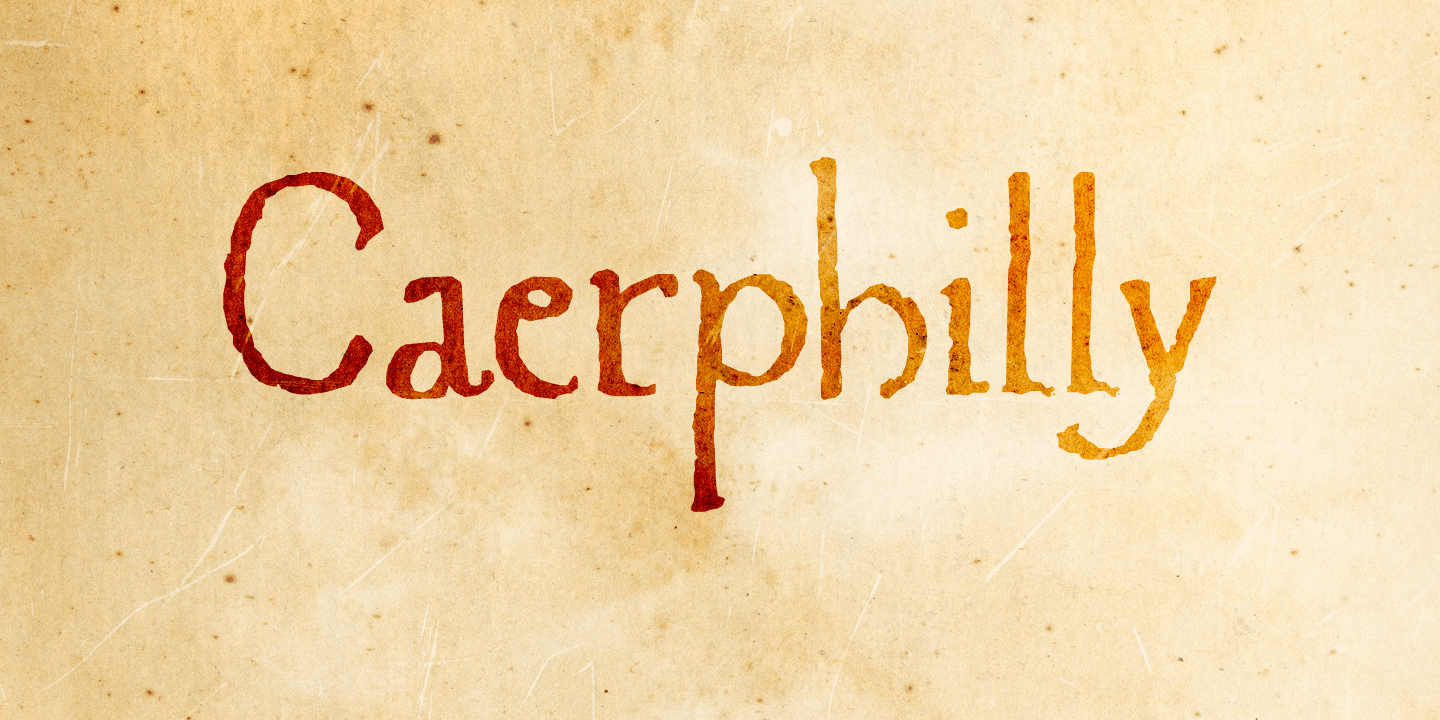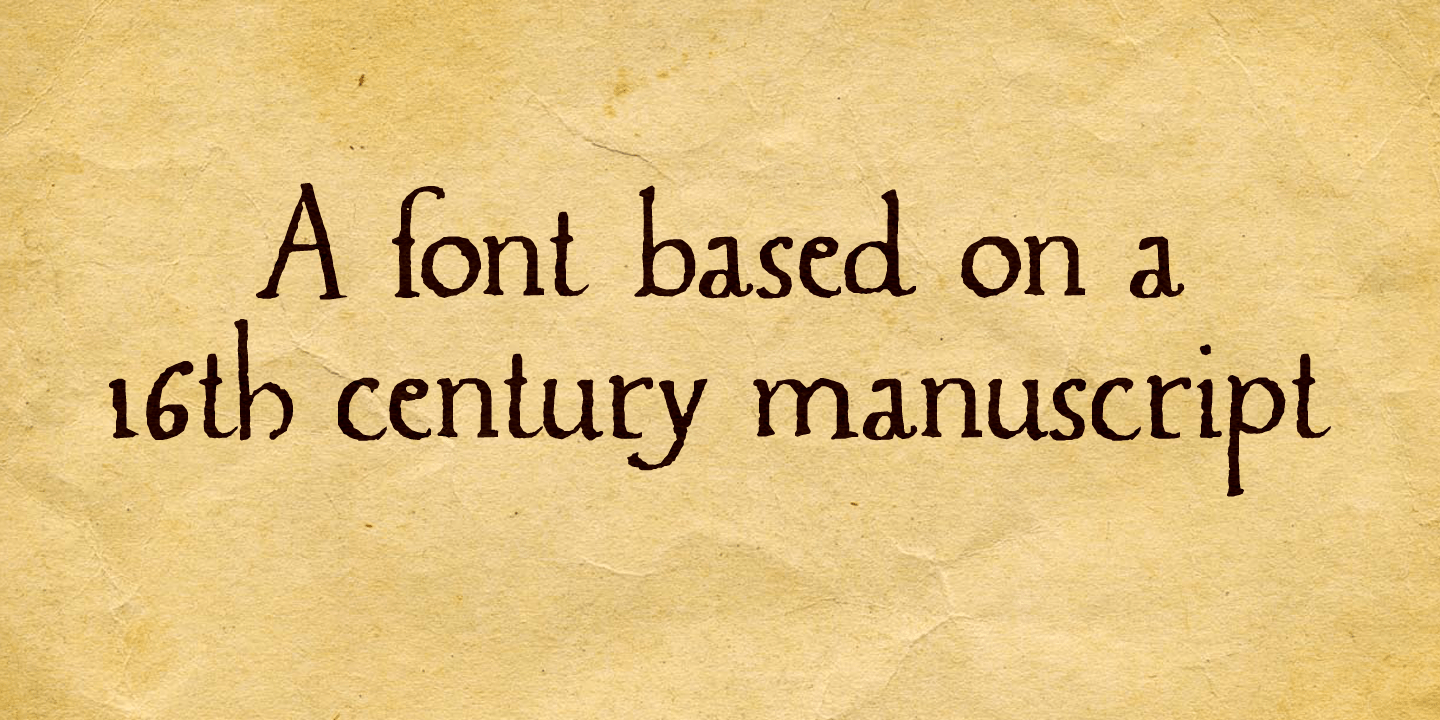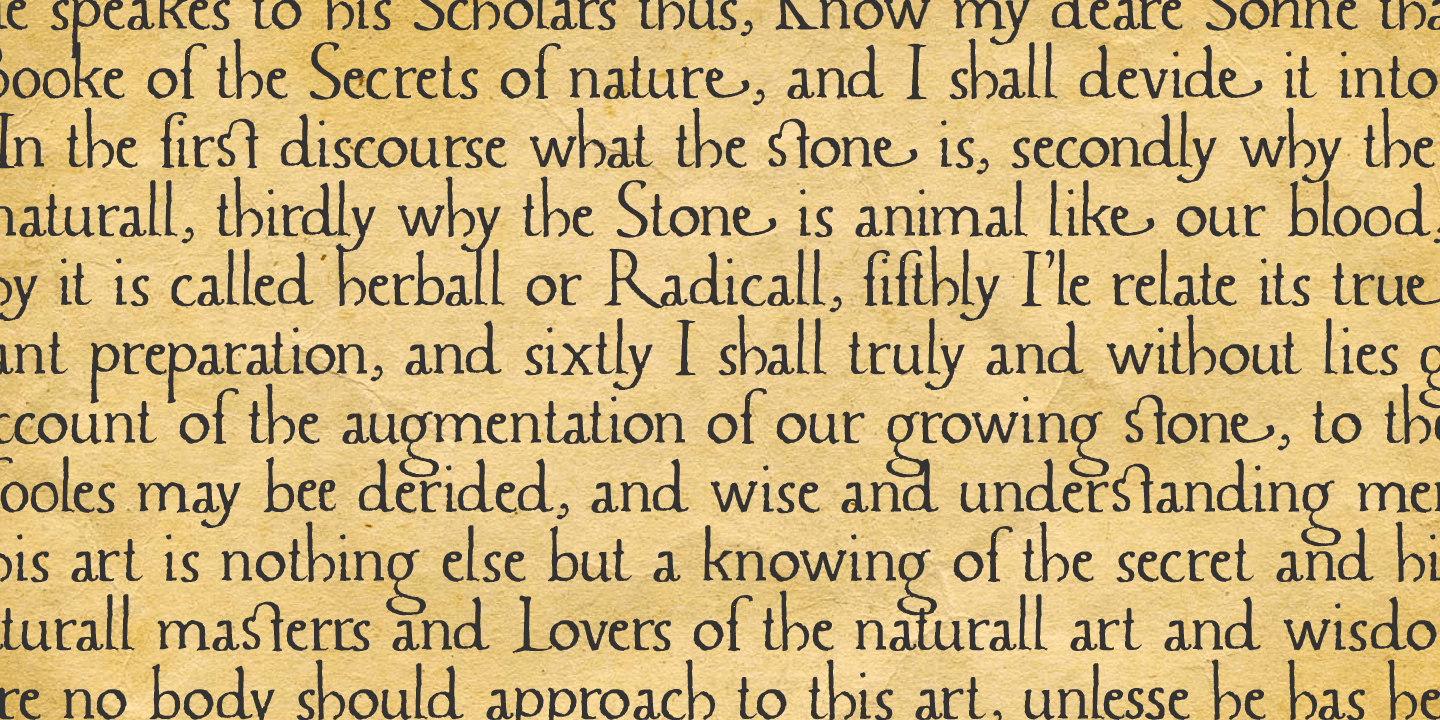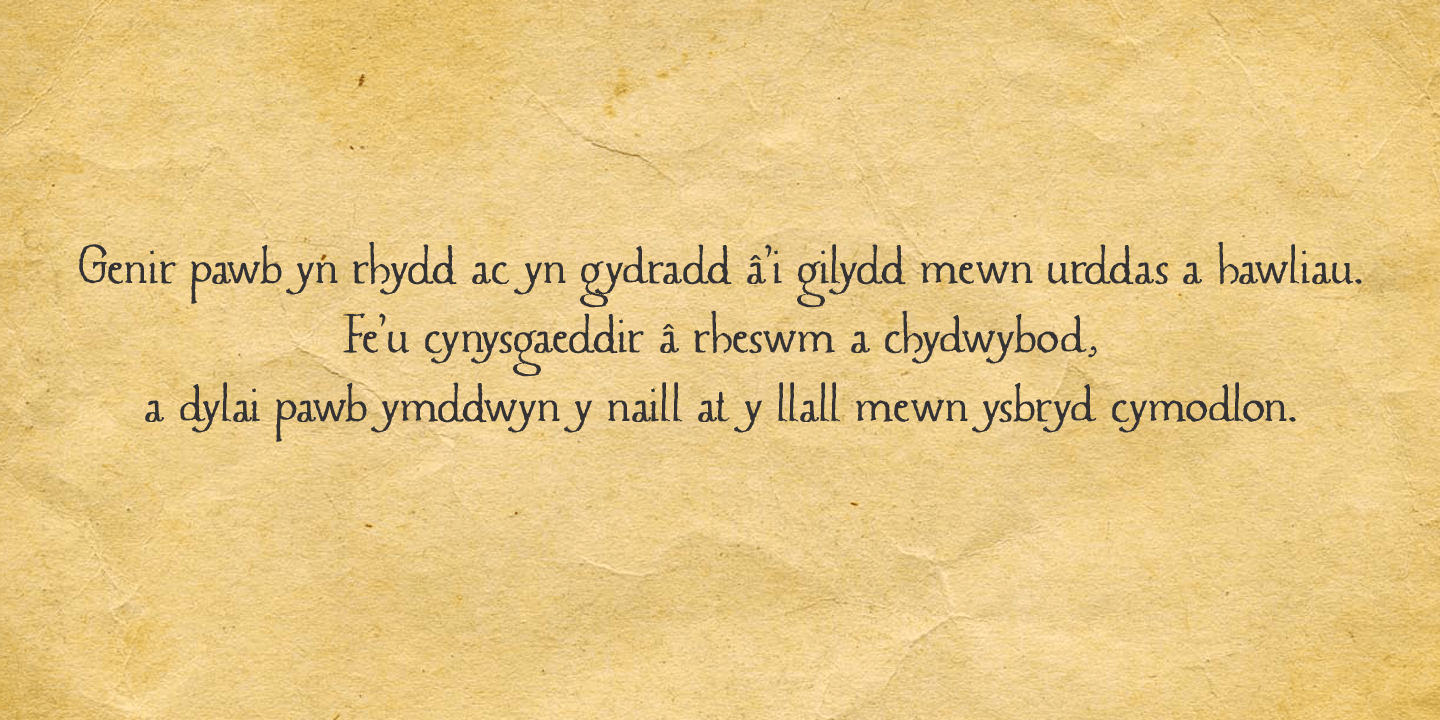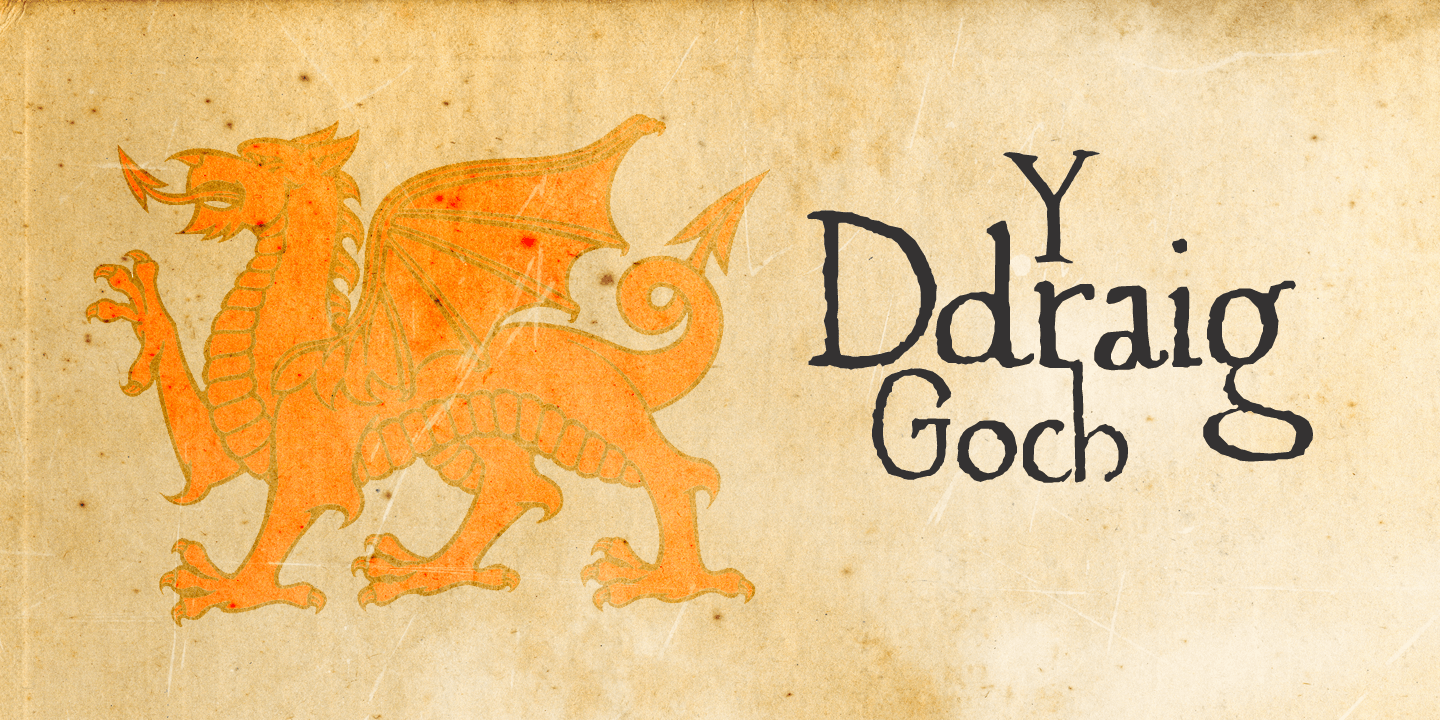
Caerphilly
I really like Wales; I like the culture, the people and the language. I also like the Welsh legends, especially the ones about King Arthur and Merlin. I am reading a book about Arthur right now, so when I was working on this font, I wanted to give it a Welsh name. Caerphilly is a town in Southern Wales and is home to an immense 13th century castle (Castell Caerffili).
Caerphilly font is based on a 16th century manuscript. I kept the glyphs rough, to give it 'ye olde' look. Comes with a hoard of diacritics, a bunch of double letter ligatures and some alternate glyphs as well.